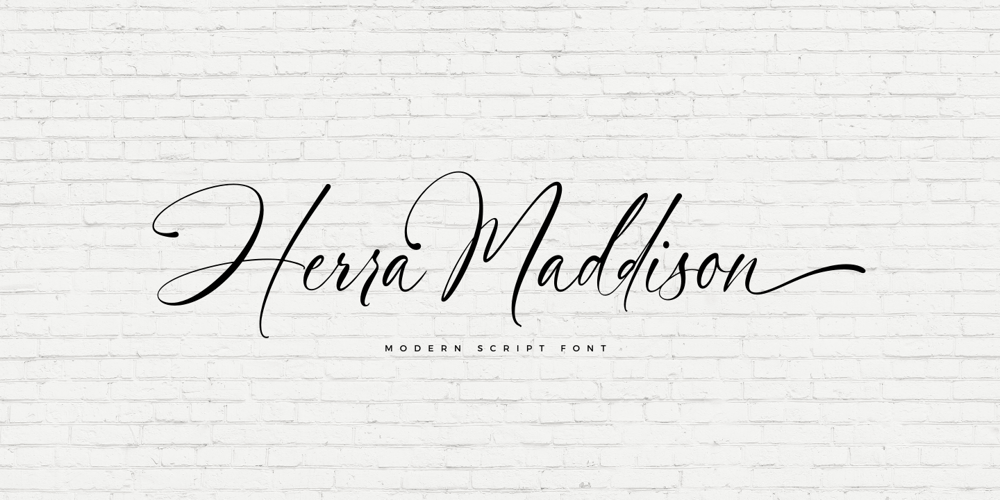
Herra Maddison Font Family was designed by Ainun Jinan and published by Jinan Studio. Herra Maddison contains 1 styles and family package options. Herra Maddison is the embodiment of modern elegance, offering you an exquisite script font with exceptional swashes and multilingual support. Whether you’re a designer working on wedding themes, branding, or promotional materials, this font will elevate your work, infusing it with a timeless and stylish charm that captivates the eye and the heart. Make Herra Maddison your choice for sophisticated, elegant designs that leave a lasting impression.Features A set of uppercase and lowercase glyphs Number, symbol, and punctuation Multilingual Support Alternates and ligatures PUA encoded